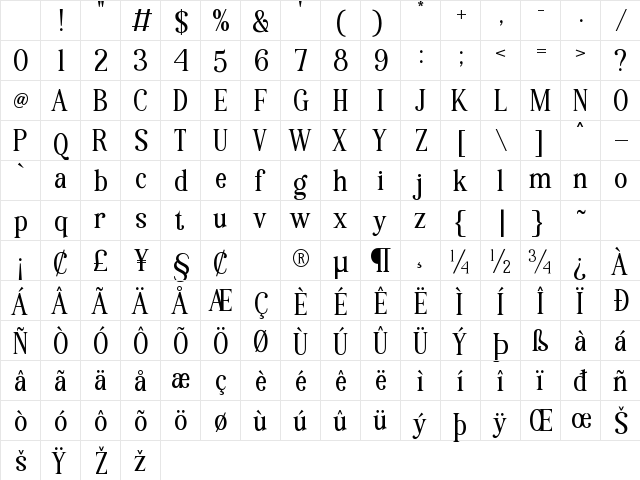
History Nineties is a composed and adaptable typeface that performs quietly and consistently across a wide range of design contexts.
Pro Tip: Use History Nineties in both headline and body roles to test its range before committing to a single application.